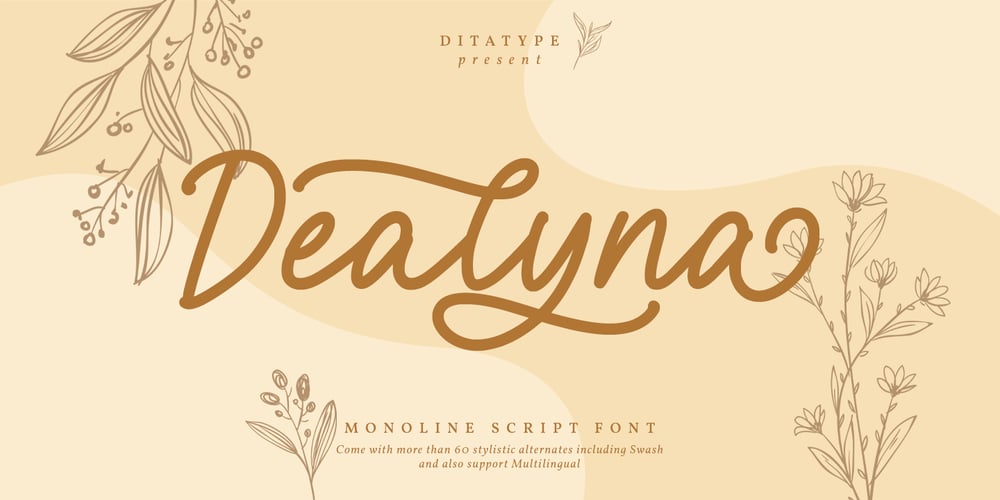
Dealyna Font Family was designed by Donis Miftahudin and published by Ditatype. Dealyna contains 1 styles and family package options. Dealyna is a modern monoline script font. With a classy and beautiful style, it brings a classy and chic typeface. Dealyna is best used for weddings, branding, logotype, and quotes.Includes: – Dealyna (OTF)Features: – Beautiful Alternates – PUA Encoded – Multilingual Support – Numerals and PunctuationThank you for downloading premium fonts from Dita Type